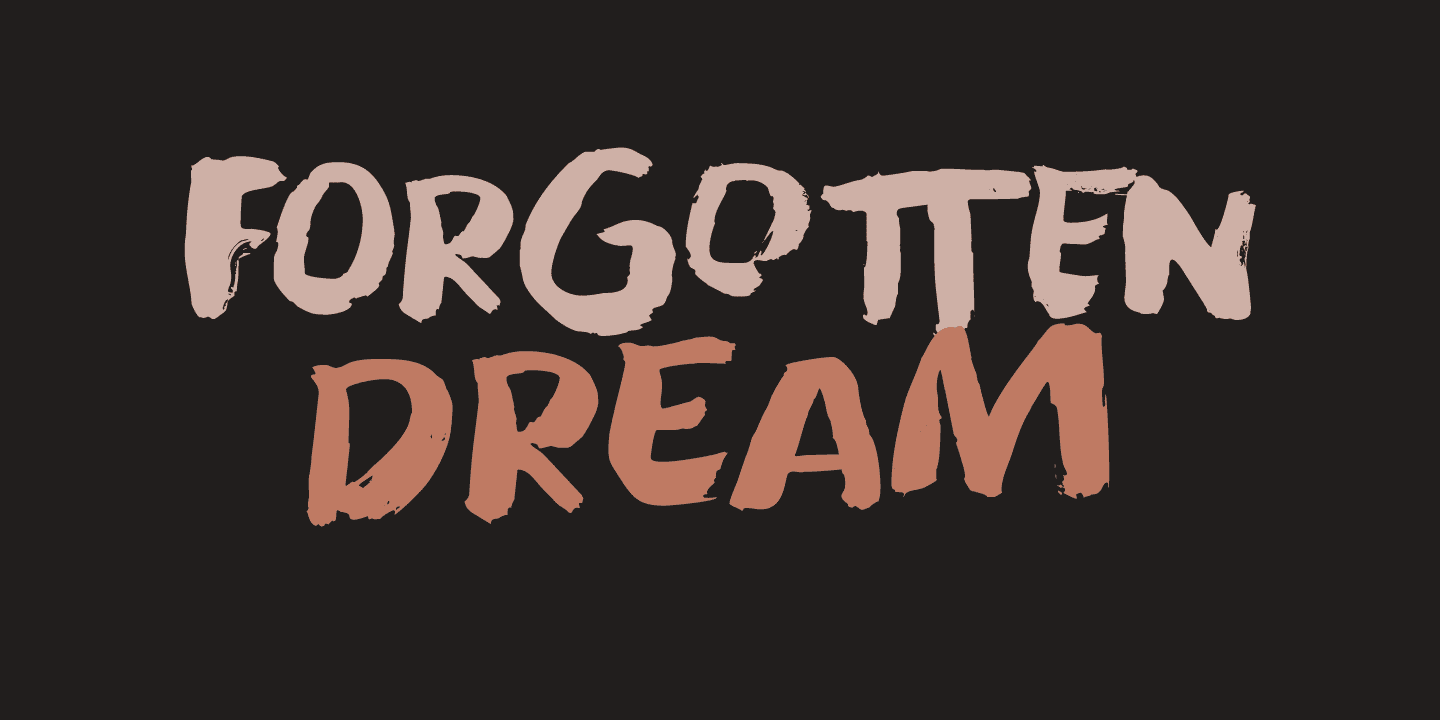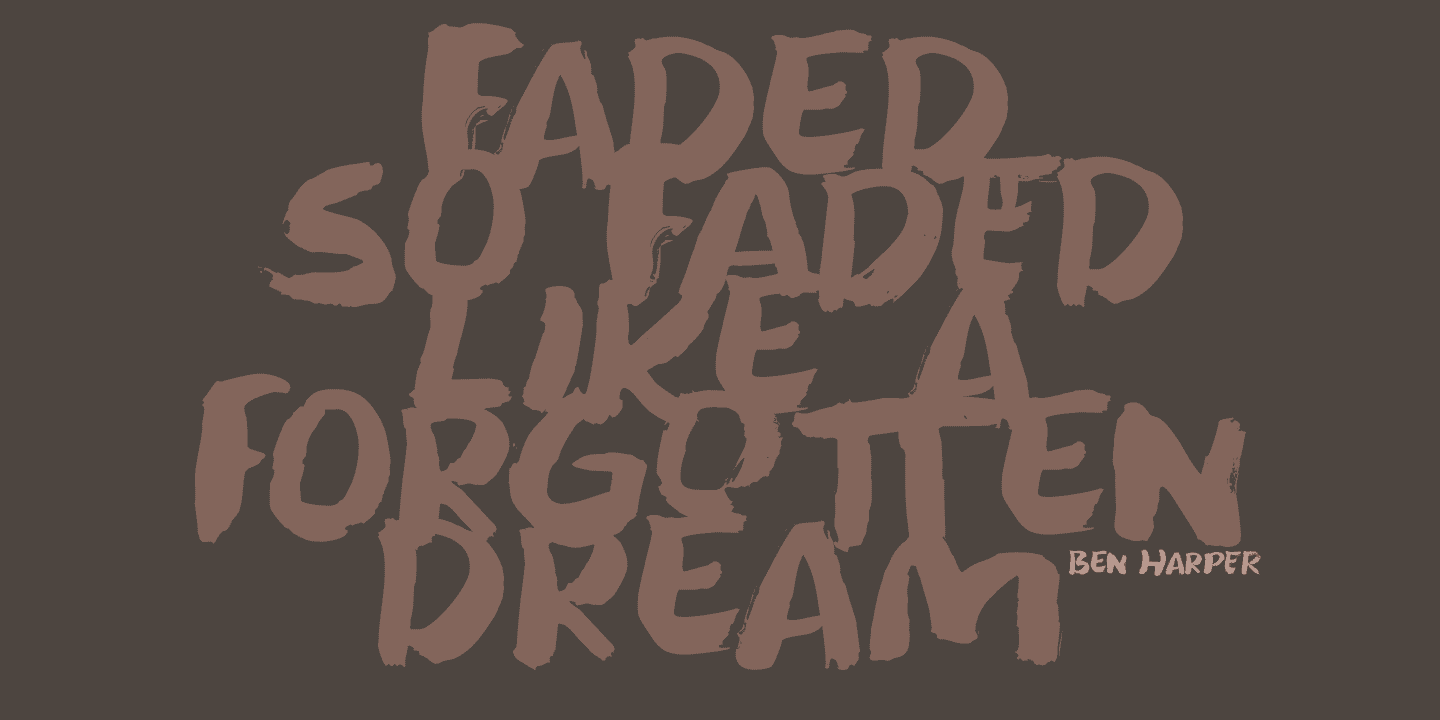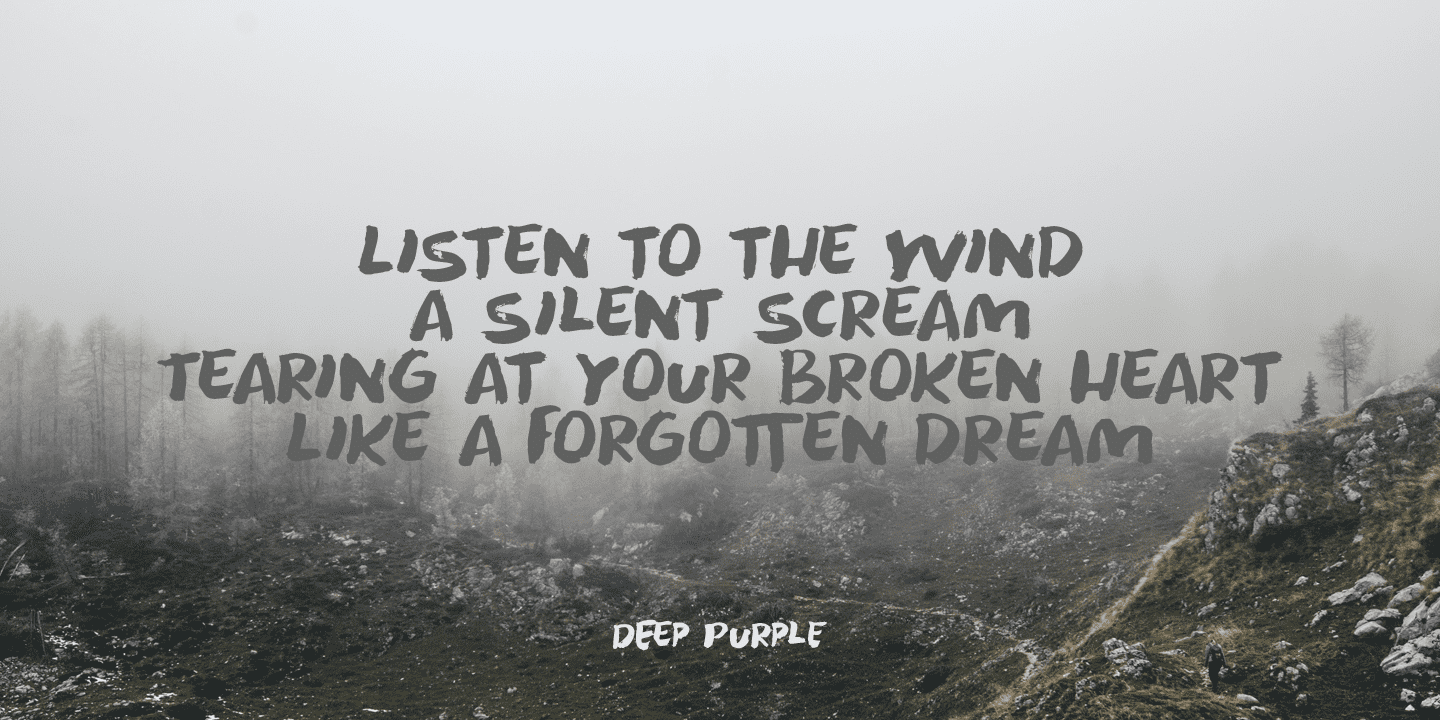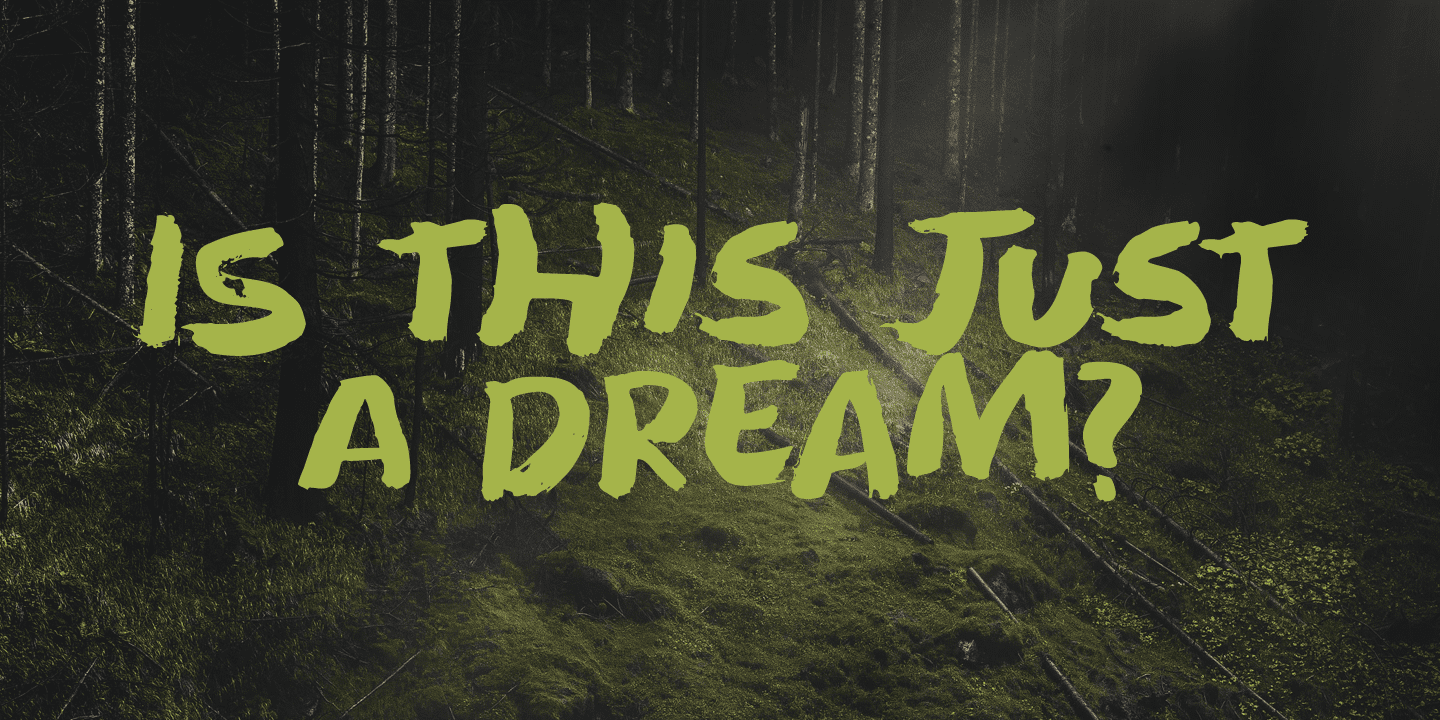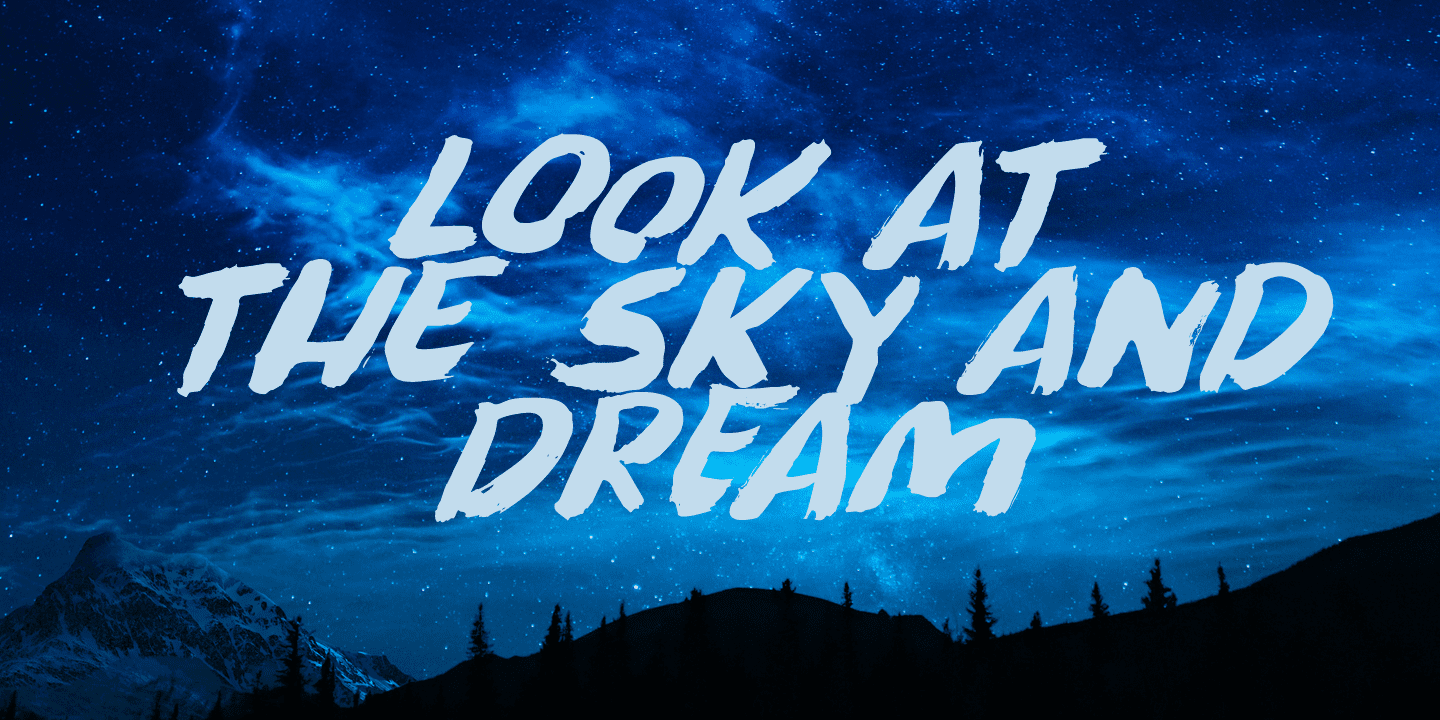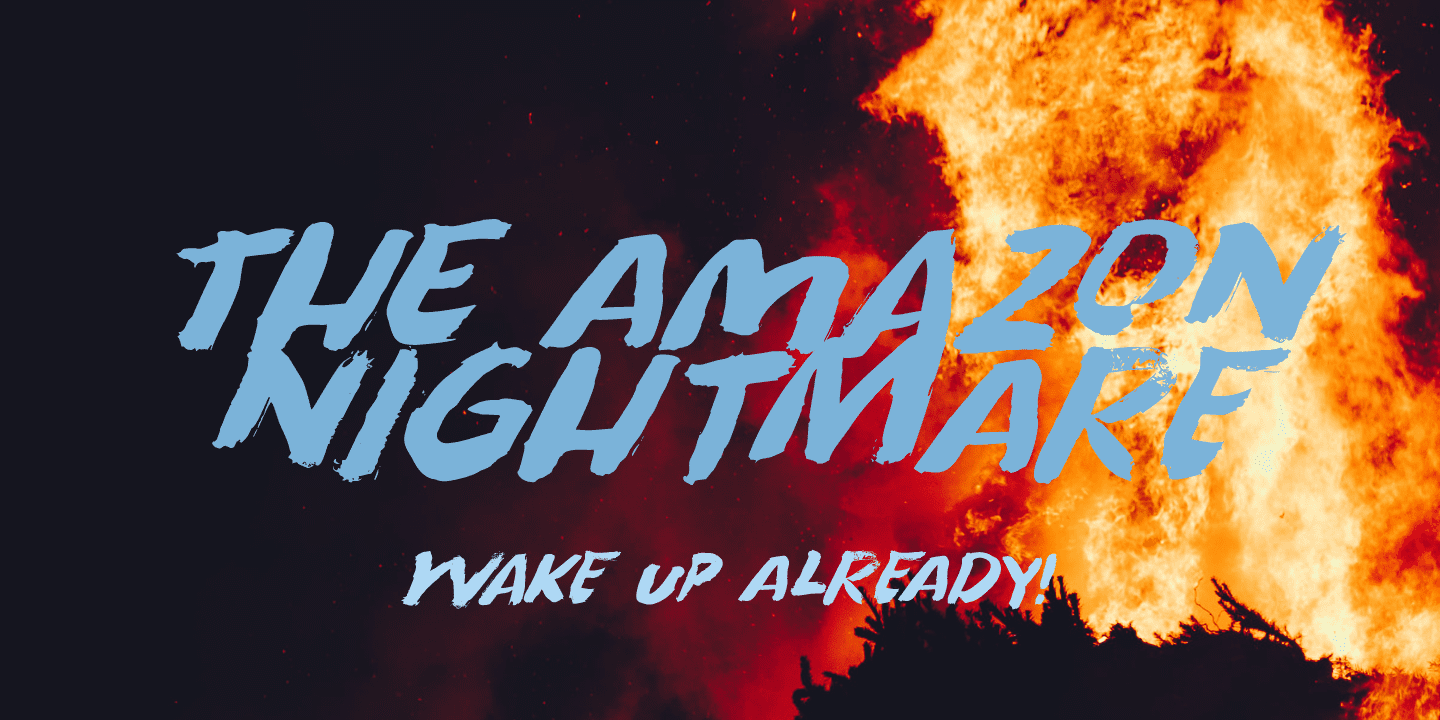
Forgotten Dream is a horror brush font, which I made with a brushy brush and Chinese ink. It looks like something right out of a nightmare, but you can also use it for something important. Like a ‘keep your distance’ poster, or a sign about the importance of washing one's hands.
But then again, if you play in a death metal band, then Forgotten Dream font could be exactly what you need for your album cover!